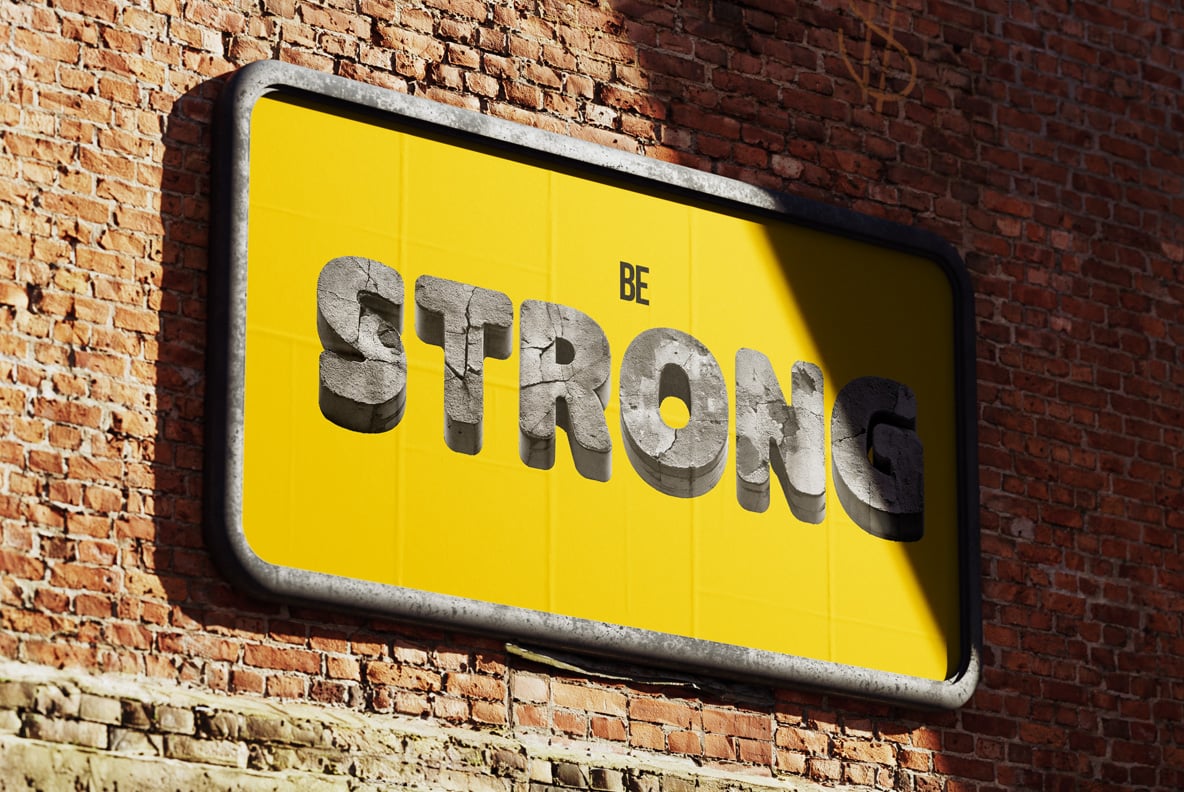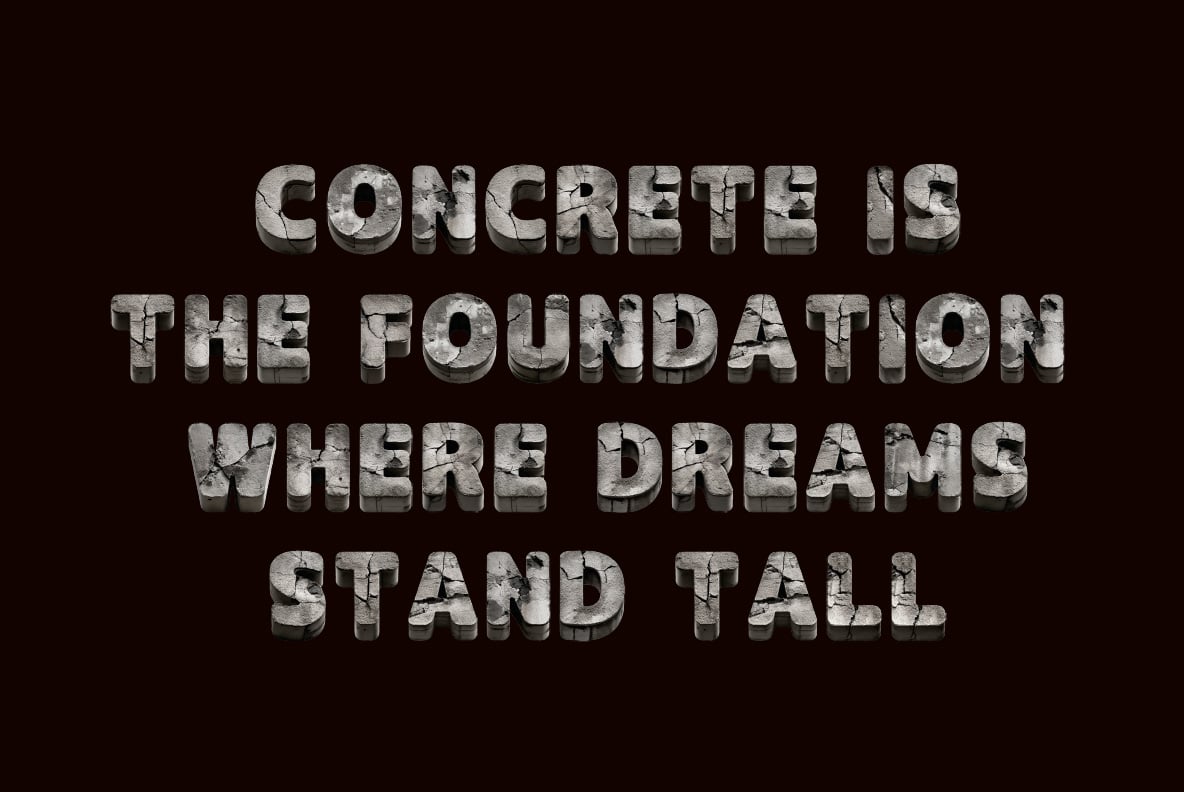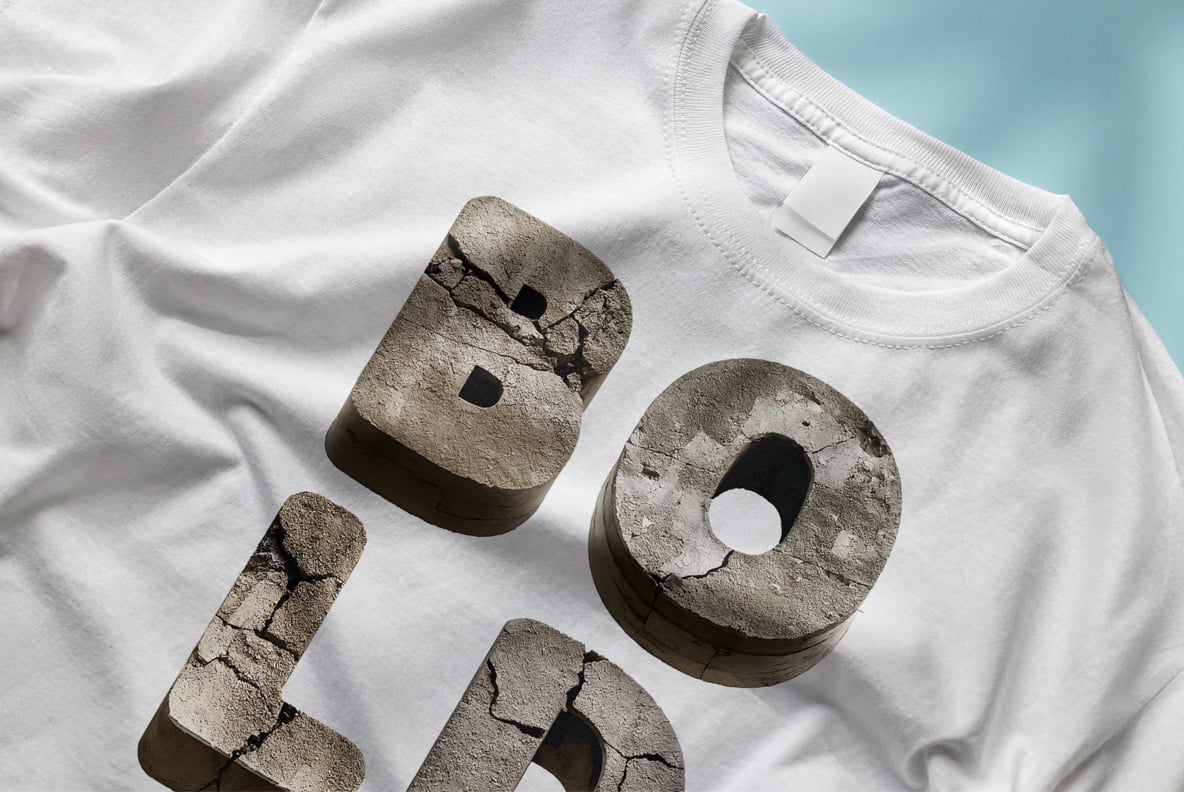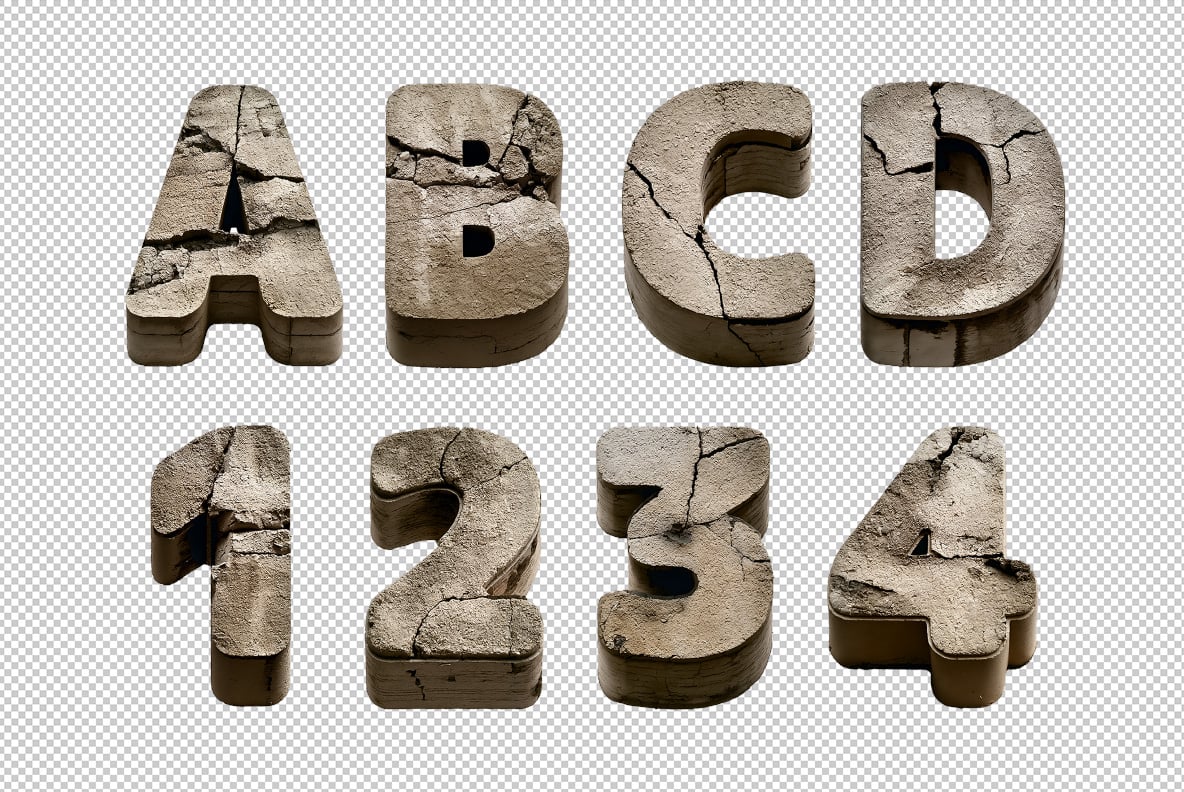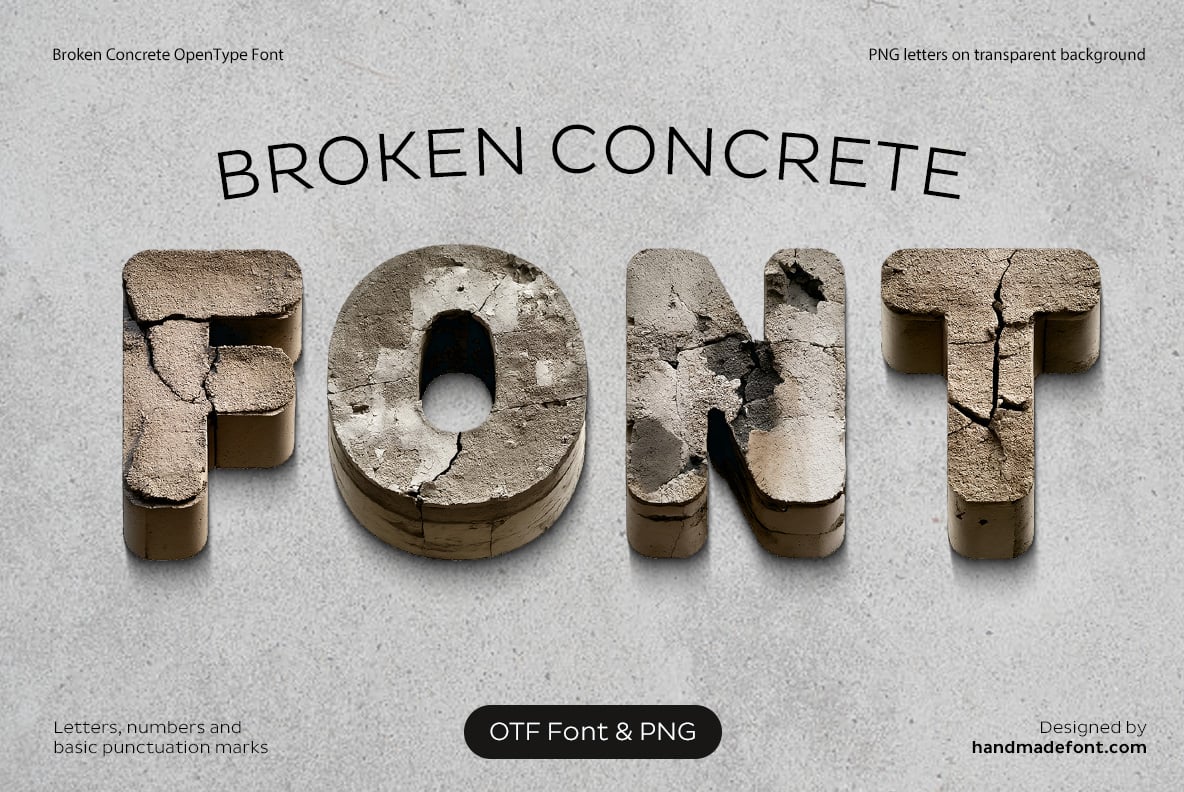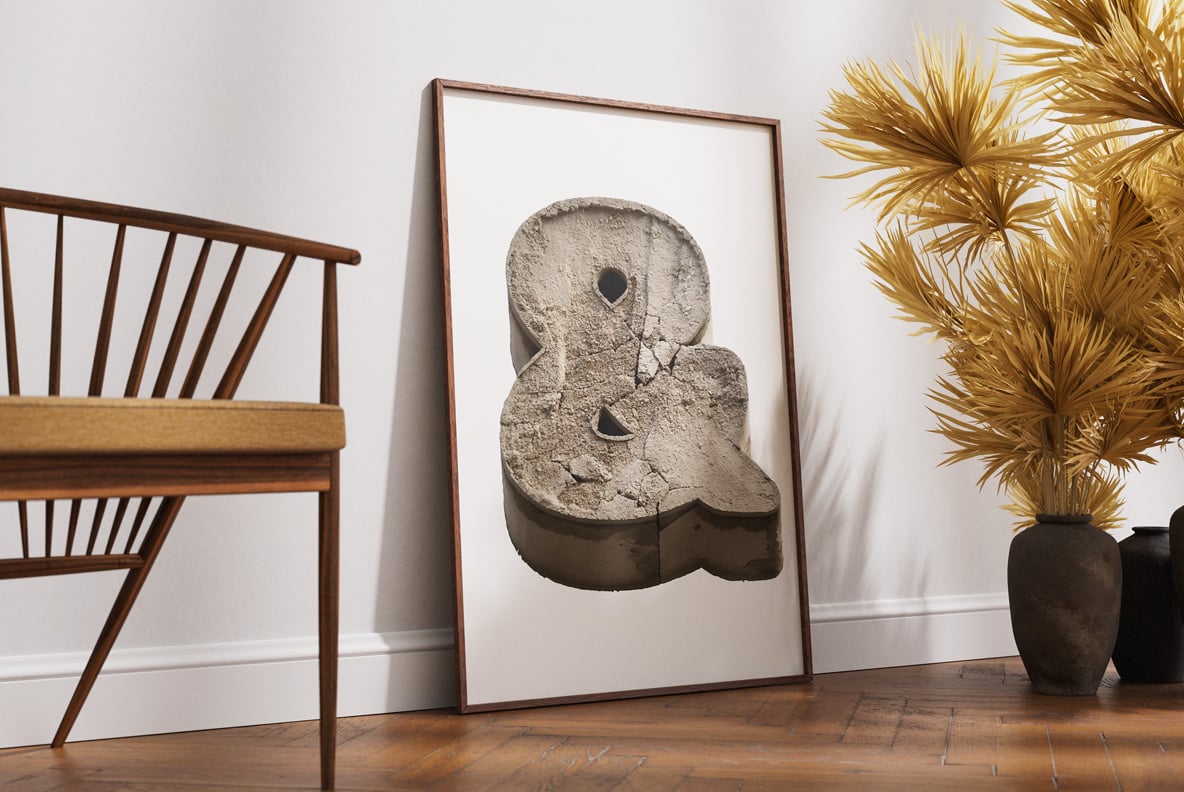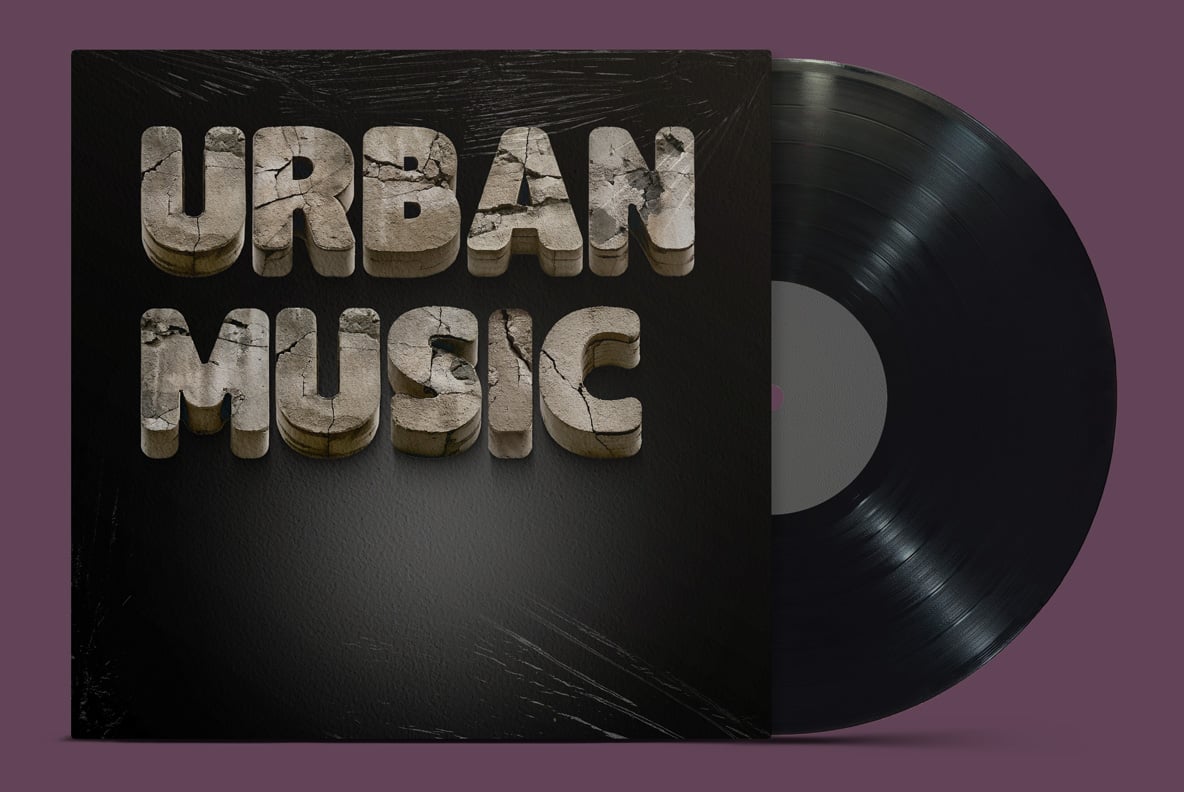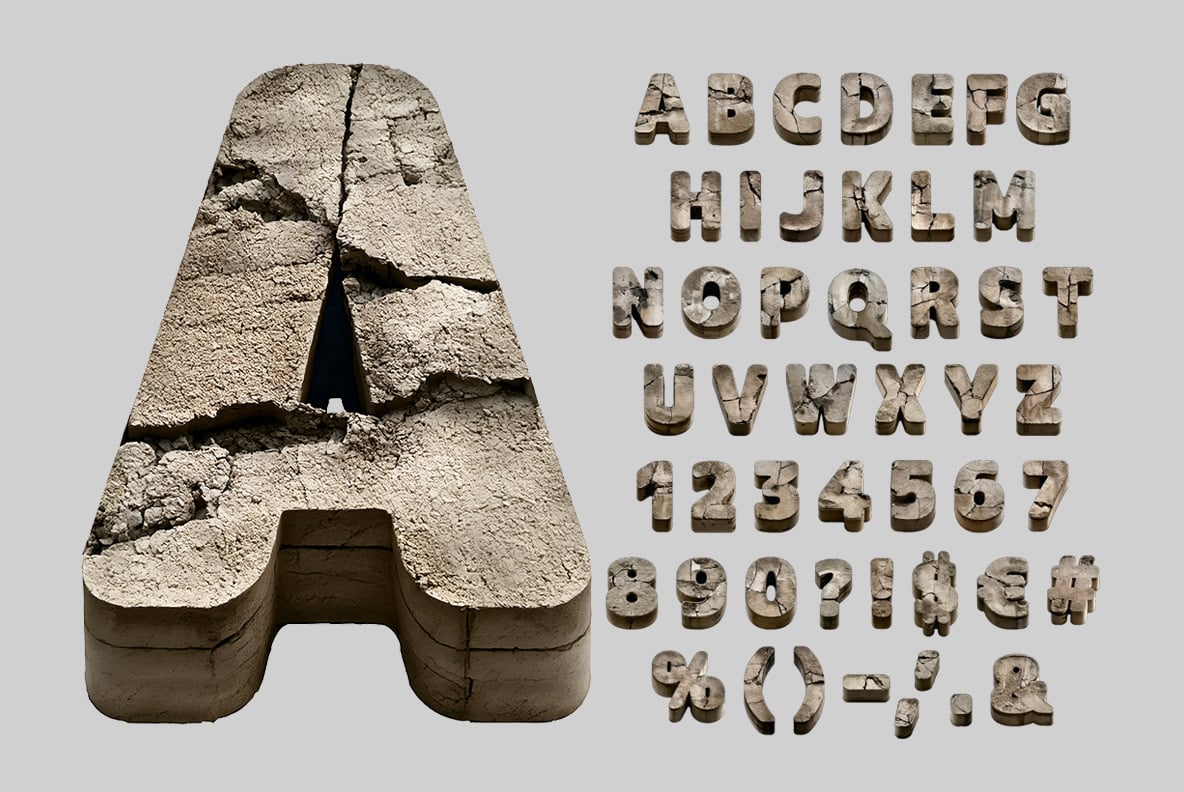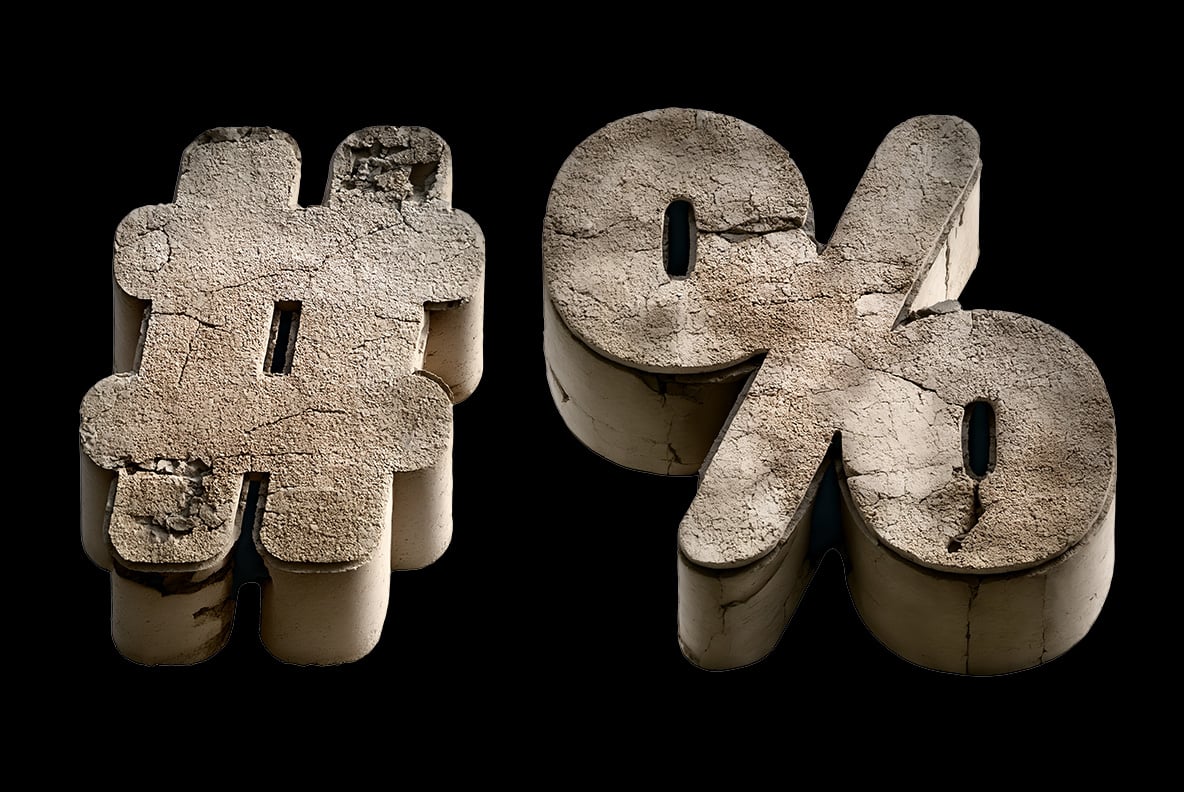
Broken Concrete Font
Broken Concete Font. A high definition OpenType Font. Contains uppercase characters, numerals and basic punctuation. (Draw height roughly 800 pixels). All letters and glyphs that comprises this font you can see on the preview.
Strong and bold, the *Broken Concrete Font* captures the raw essence of shattered concrete. Each letter is crafted from fractured chunks, combining the gritty texture of concrete with a unique, edgy aesthetic. Perfect for projects that demand a rugged, industrial vibe, this alphabet exudes strength and resilience. Whether you're designing posters, logos, or impactful headlines, this font transforms broken concrete into a striking artistic statement. Embrace the power of imperfection with this dynamic and unforgettable typeface.
Others : ! ? - . ' $ € % &